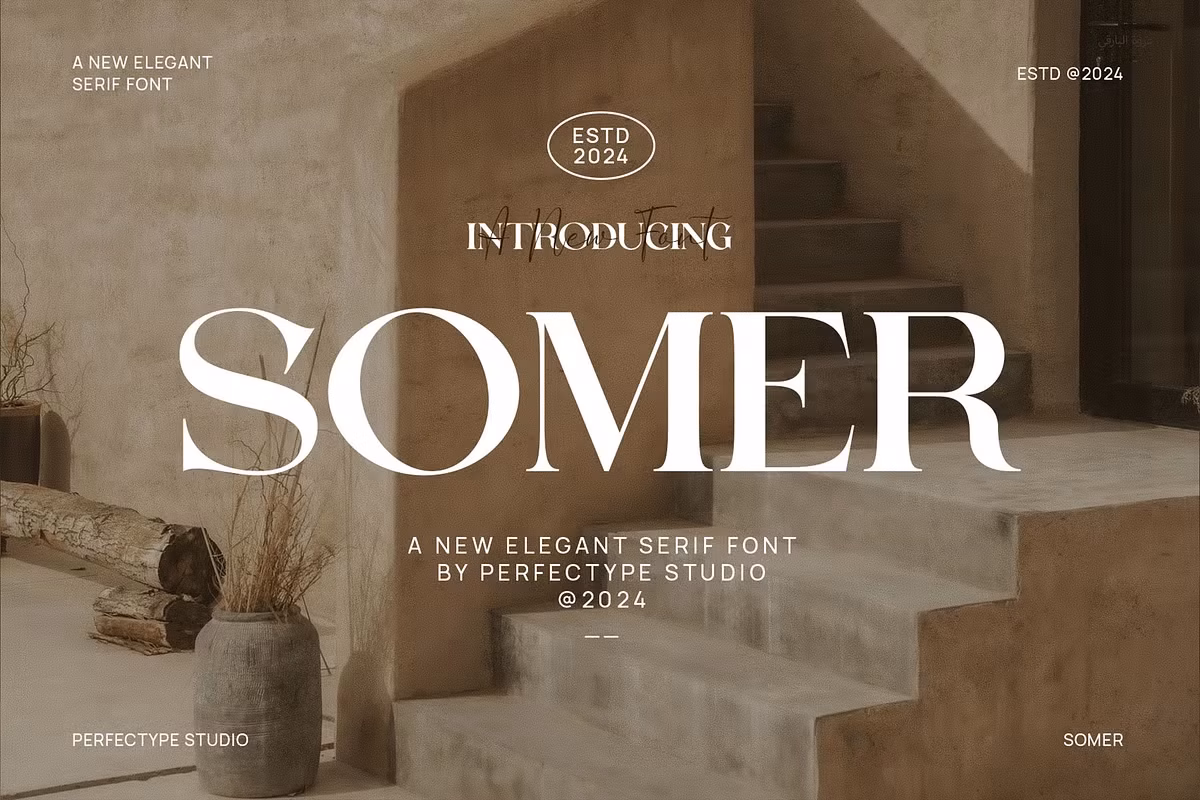
Somer Elegant Serif Font Typeface Free Download
Please note, you must purchase this font for commercial use. However, you can easily download Somer Elegant Serif Font Typeface Free Download for personal use and testing purposes. Somer Elegant Serif Font Typeface is a sophisticated and timeless font designed to bring a touch of class and professionalism to your projects. Perfect for high-end branding, editorial design, invitations, and luxury marketing materials, this elegant serif font features clean lines, refined serifs, and a harmonious balance between modern and traditional typography. Somer Elegant Serif Font Typeface Free Download adds a sense of prestige and sophistication to any design, making it ideal for premium brands, business logos, and upscale print materials. Download Somer Elegant Serif Font Typeface Free Download today and explore its versatile potential before deciding on a commercial license.